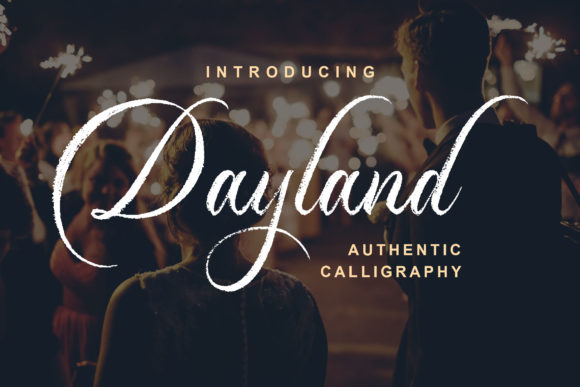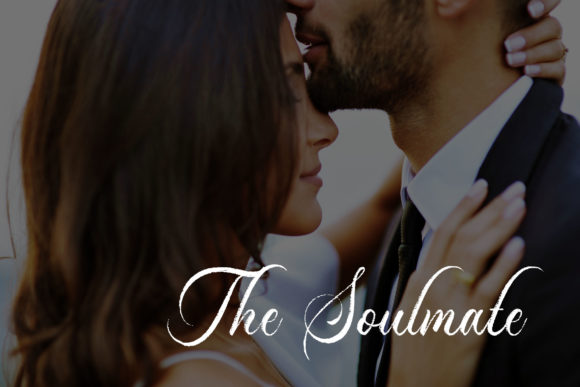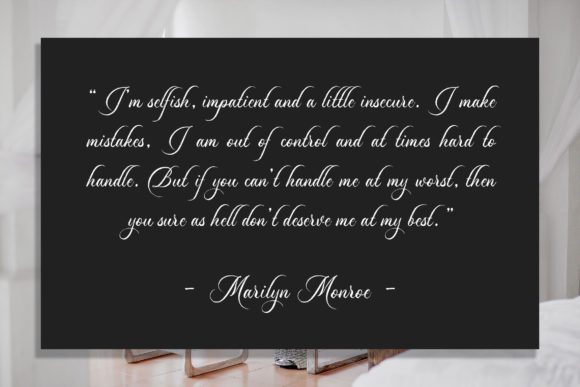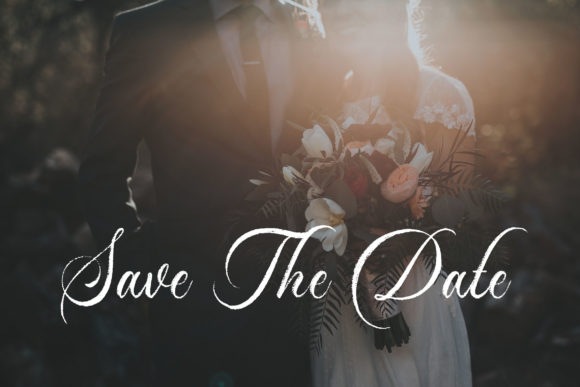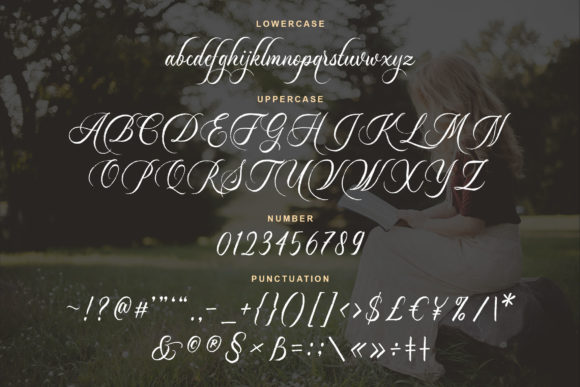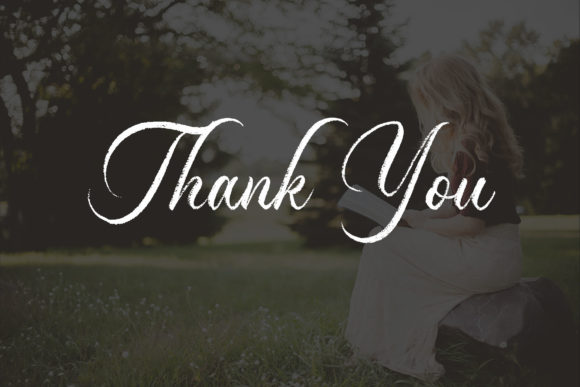
HomeScript FontsDayland Font Script Fonts Dayland Font FacebookXPinterestWhatsApp Dayland Font Poster 2 Dayland Font Poster 3 Dayland Font Poster 4 Dayland Font Poster 5 Dayland Font Poster 6 About Dayland Font Dayland is a dazzling and romantic handwritten font with an organic feel. Get inspired by its delicate charm. DOWNLOAD ON CREATIVE FABRICAThis font is sold and delivered by Creative Fabrica. Font Canyon may earn a commission if you buy through this link. People also explored Sweet Home Font Jacquelina Beautiful Handdrawn Font Lomanos Font Davetica Font Adaniya Font Gamexym Font Forward Passed JNL Font Ice Ball Font Naerolobist Font 441 0 TagsDayland Font Previous articleShabila FontNext articleAudrey Love Font LEAVE A REPLY Cancel reply Comment: Please enter your comment! Name:* Please enter your name here Email:* You have entered an incorrect email address! Please enter your email address here Website: Save my name, email, and website in this browser for the next time I comment. Personal Use Free Aseline Personal Use Free Read more about this font Electroharmonix Personal Use Free Read more about this font Little Pigeon Personal Use Free Read more about this font Rembank Personal Use Free Read more about this font BLOG Free vs Paid Fonts: Why Investing in Premium Fonts Is Worth It Free vs Paid Fonts: Why Premium Fonts Are Worth It in 2025 The debate of free vs paid fonts continues in the design world. While... Top 10 Handwritten Fonts That Elevate Your Designs To increase your work productivity, choose the most readable fonts. Modern Sans-Serif Fonts That Brands Love in 2025